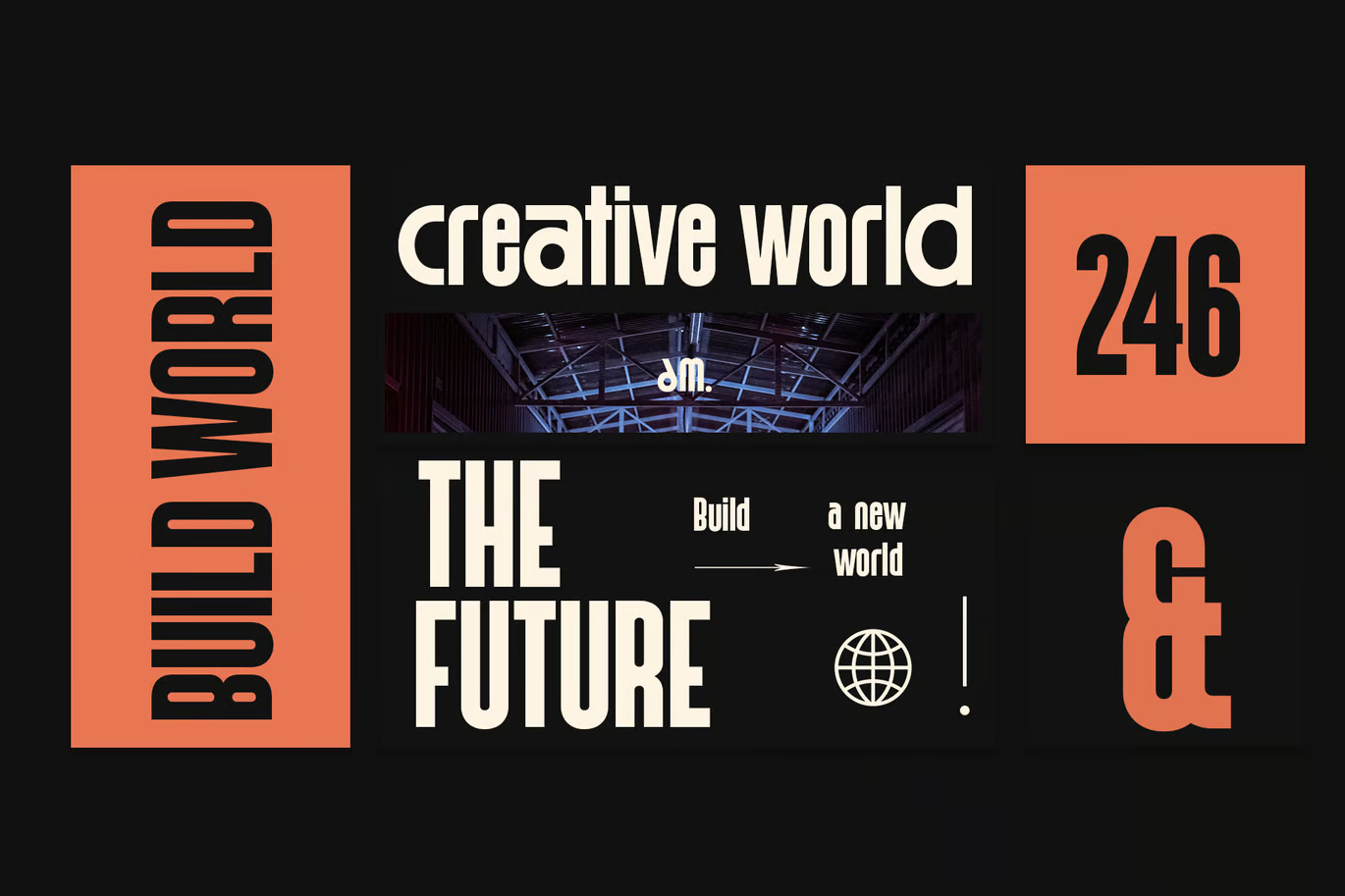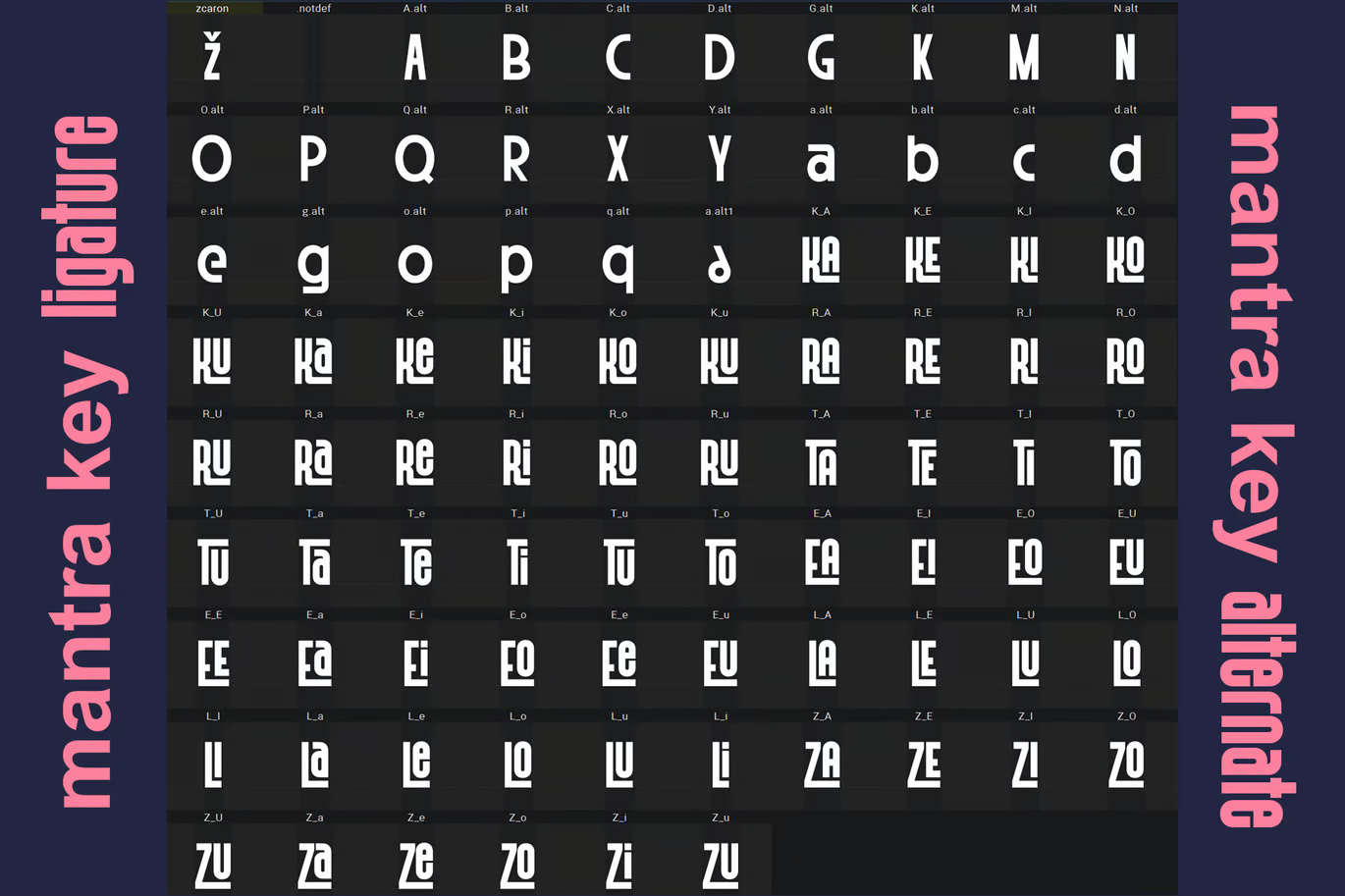
The Mantra Key
The Mantra Key is a versatile and stylish font, perfect for a wide range of creative projects. Whether you’re designing book covers, magazines, logos, branding materials, photography watermarks, inspirational quotes, blog headers, posters, or advertisements, this font adds a unique and artistic touch. With its distinctive character and aesthetic appeal, it enhances any design with elegance and personality.
The Mantra Key Sans-Serif Font